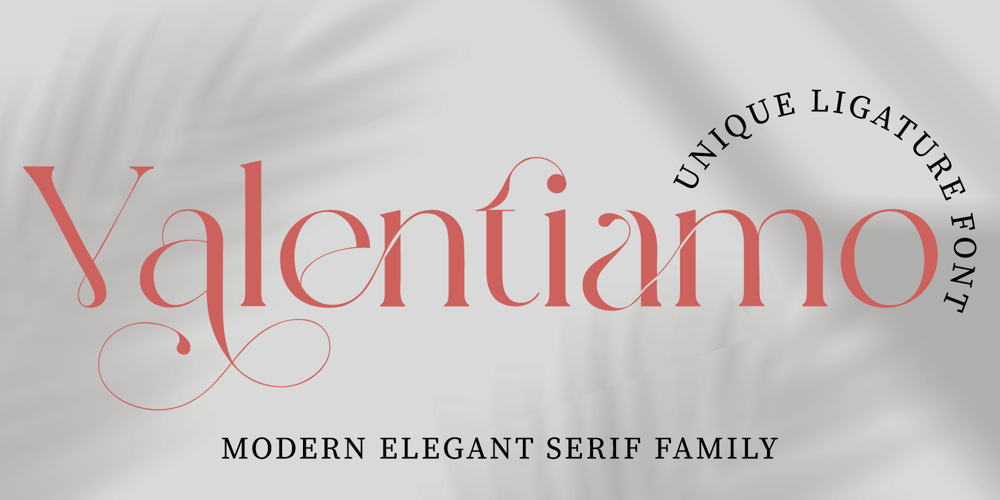
Valentiamo
Valentiamo font
Valentiamo Font Family was designed by El Mehdi CHOUYOUKH and published by Mchcrafter. Valentiamo contains 2 styles and family package options. Valentiamo is a Modern Stylistic Serif FamilyA new serif that we created special for branding needs, with extra ligature in unique shape add value of your brand. It so nice to leverage designer or product owner that need solutions to make their design look more stylish and modern. And specially for Valentiamo font, We prepared any ligatures, and any alternate characters to help you create unlimited variations for your creative needs.Valentiamo Family includes (Regular + Italic): All uppercase & lowercase letters All numbers 0-9 & Punctuation Ligatures & Alternates Symbols Multiligual Letters